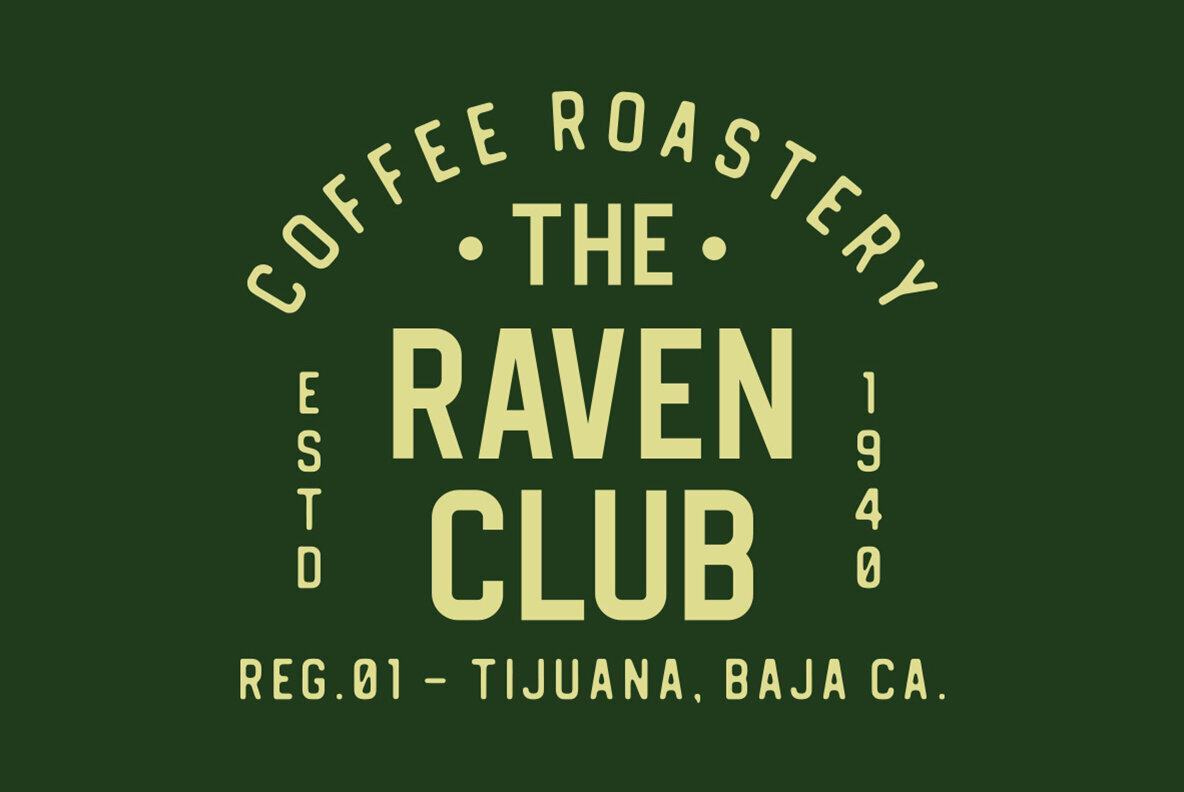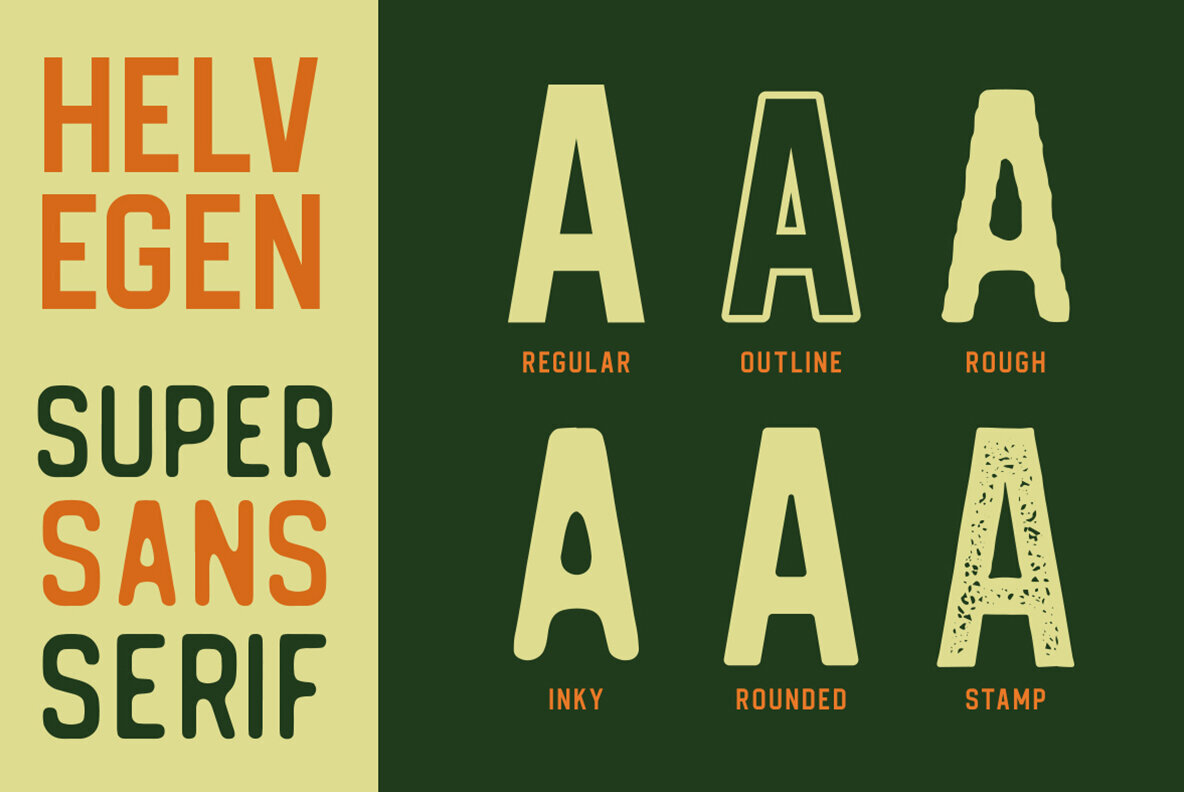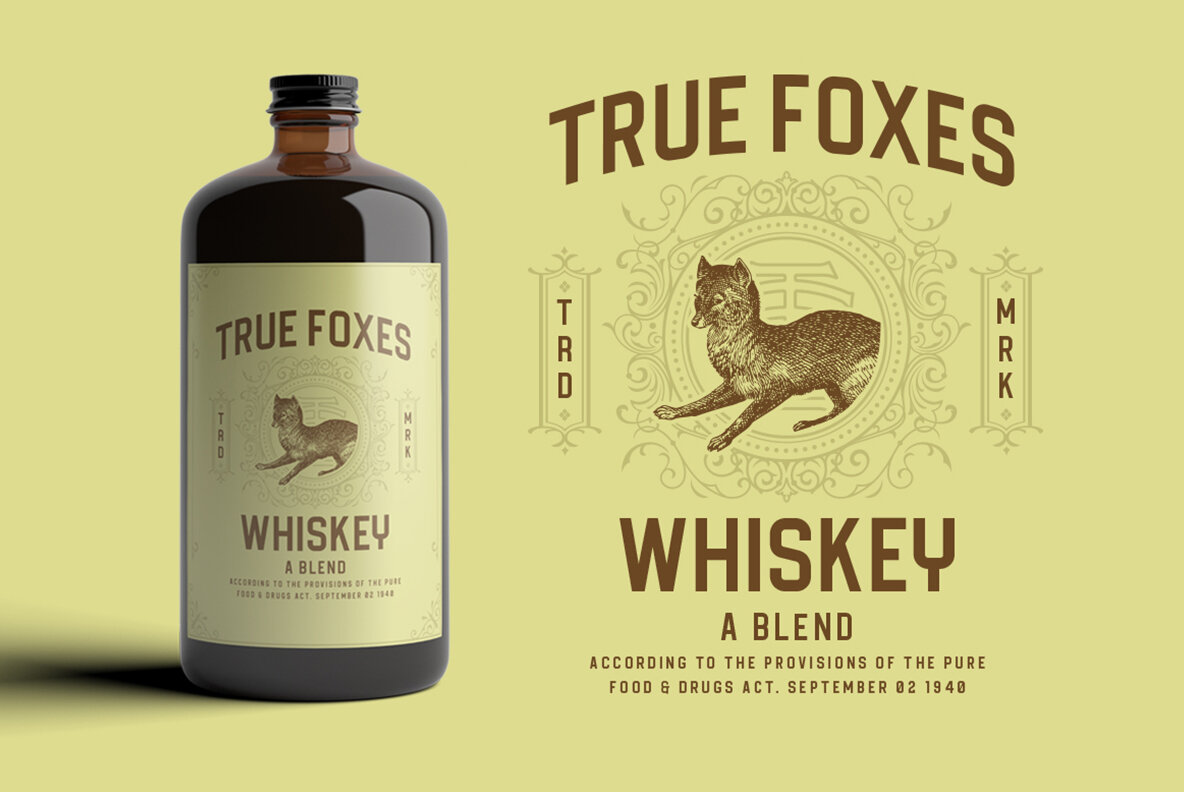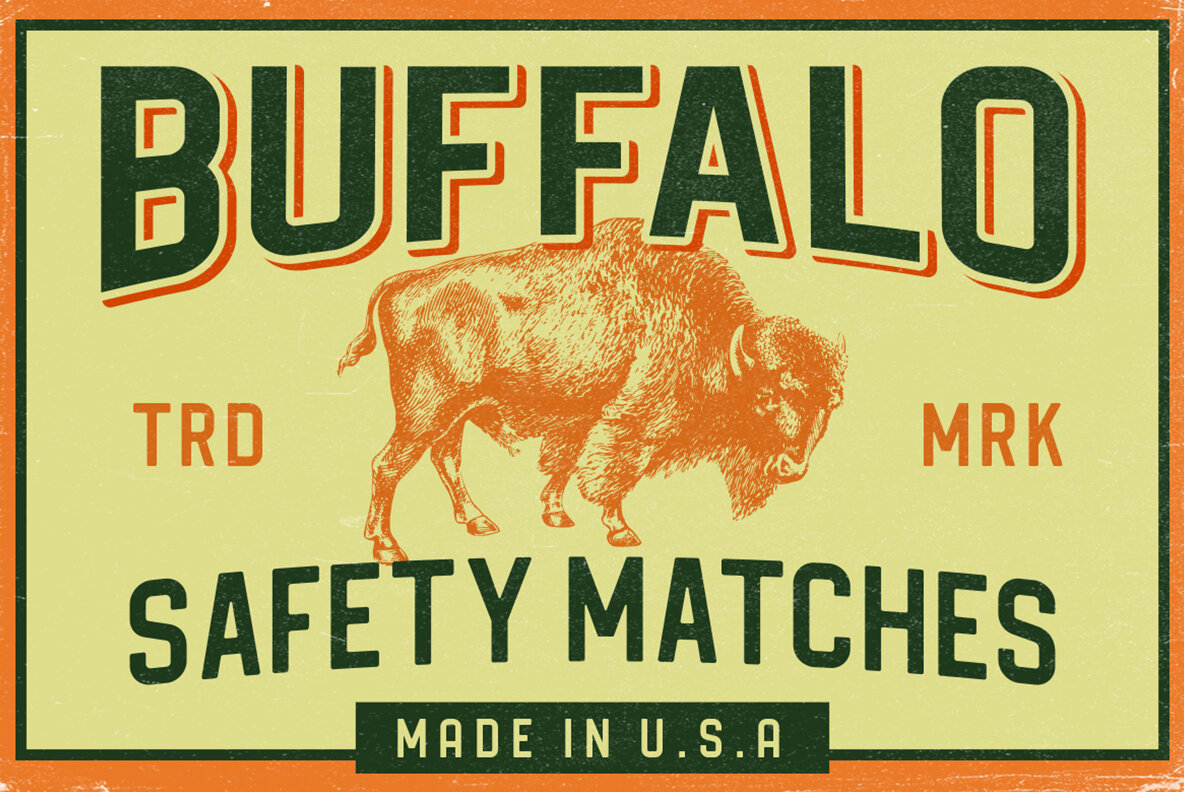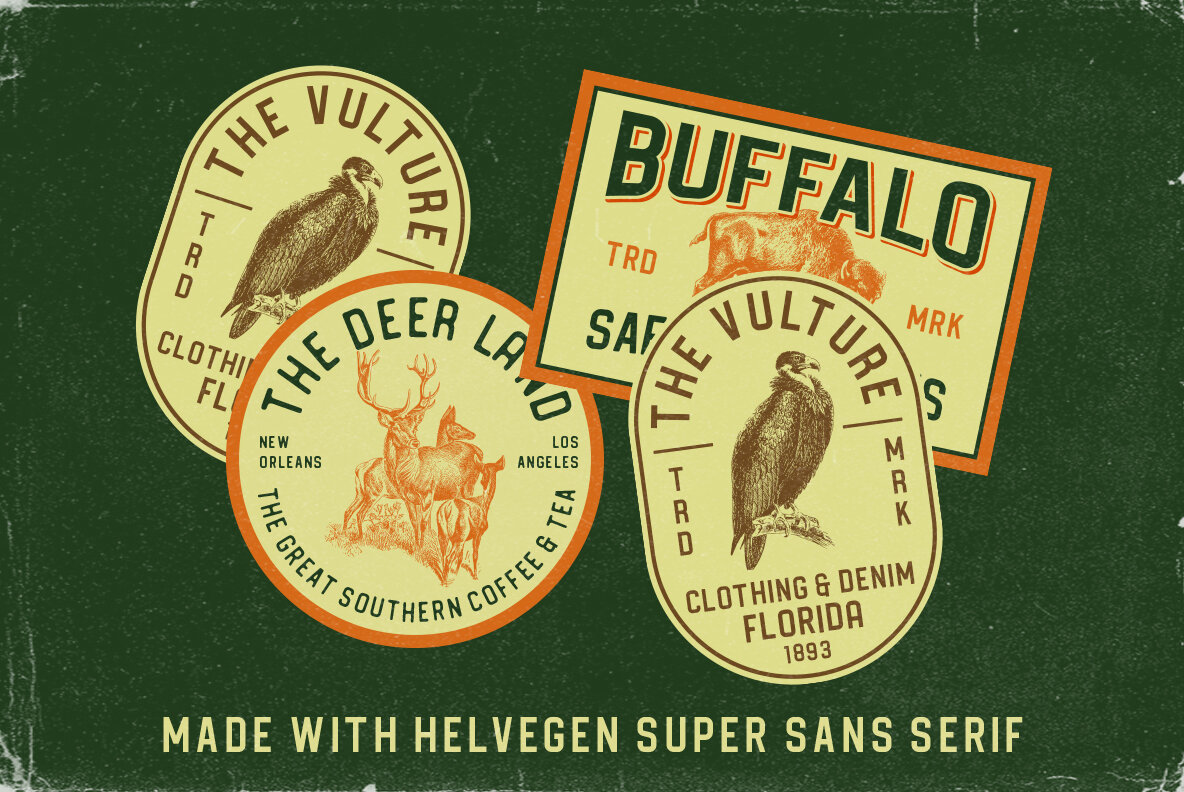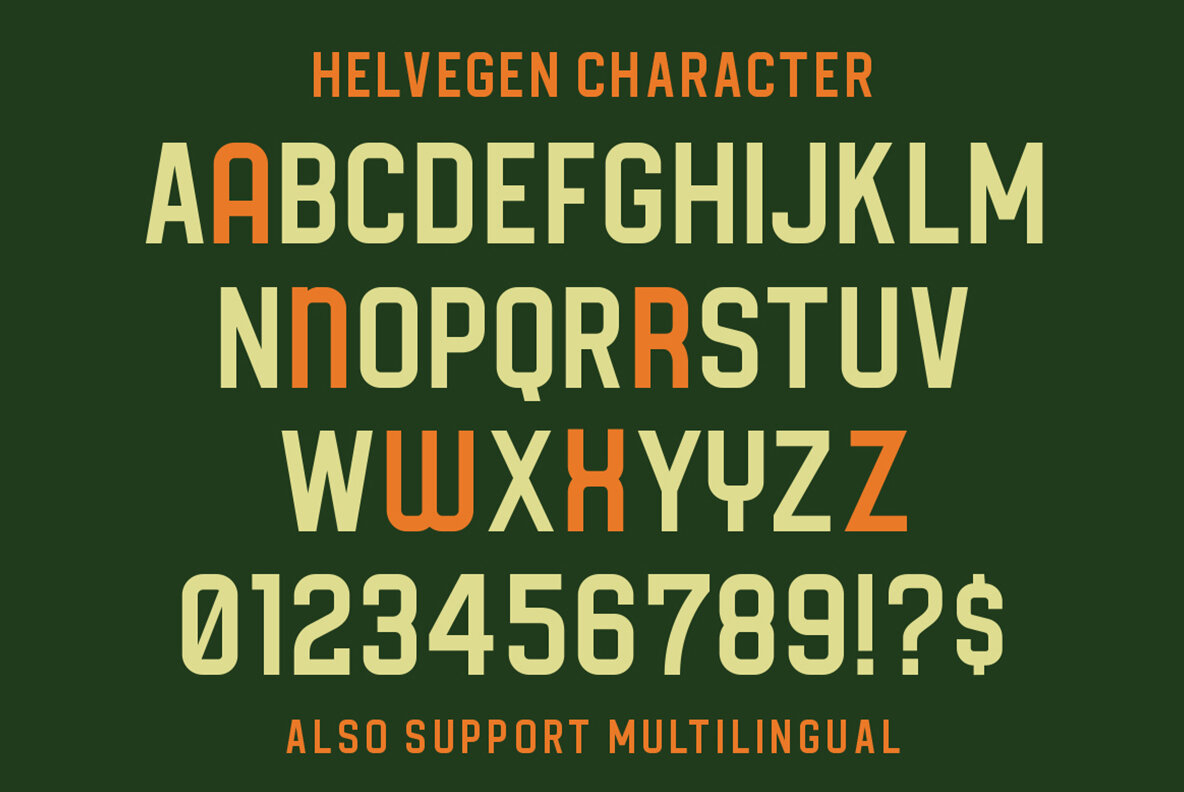
Helvegen Font
Helvegen, crafted by Ironbird Creative, is a super sans serif that strikes a balance between simplicity and refinement. Designed for versatility, it comes in six unique styles: Regular, Inky, Rough, Rounded, Outline, and Stamp. An all-caps font, Helvegen is ideal for branding, t-shirt graphics, vintage designs, and logotypes, adapting effortlessly to a wide array of creative projects.Helvegen: Versatile Sans Serif for Diverse Designs